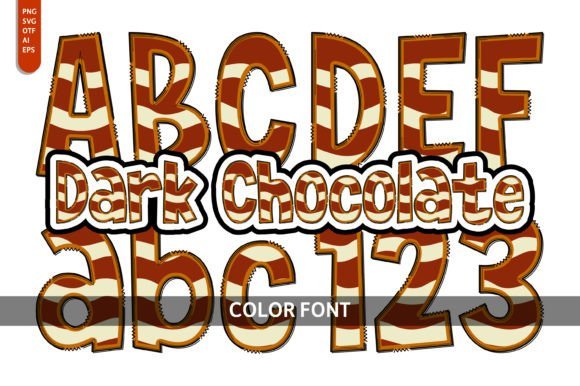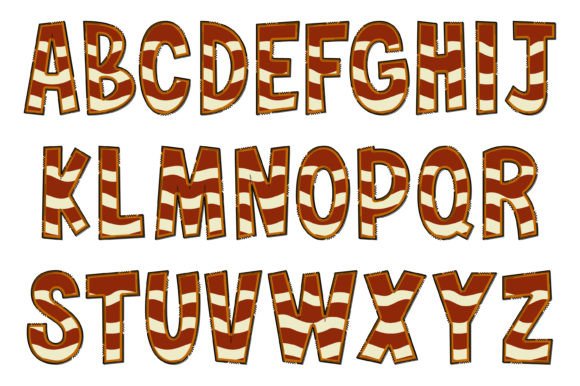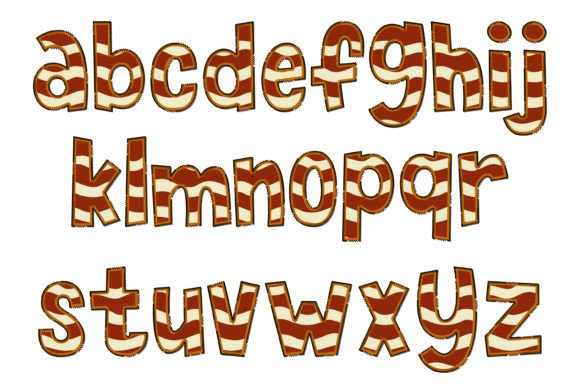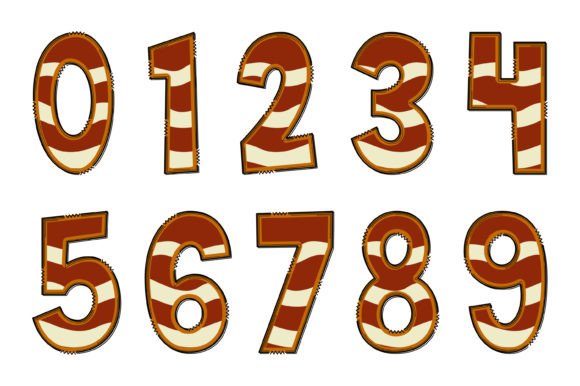
Unwrapping the Perfect Font: A Journey to the Dark Chocolate Font
As designers, we’ve all been there – staring at a blank page, trying to conjure up the perfect font to bring our creative vision to life. It’s that moment of epiphany when the right font clicks, and our design starts to take shape. For me, it was a children’s book project that required a font that was both playful and easy to read. That’s when I stumbled upon the Dark Chocolate Font – a delightful, whimsical font that added a touch of magic to my design.
The Dark Chocolate Font is a versatile tool for designers looking to add a playful or artistic feel to their work. Whether it’s a children’s book, poster, invitation, or greeting card, this font is sure to bring a smile to the viewer’s face. Its unique blend of elegance and whimsy makes it a valuable asset for designers seeking to create engaging and memorable designs.
Dark Chocolate Font Key Features
- Unique Characteristics: Hand-drawn design with a rich, dark chocolate color scheme and subtle texture
Designer Review: Dark Chocolate Font
Overall, I found Dark Chocolate Font to be a unique and intriguing addition to any design project. It’s perfect for creating a sense of luxury and sophistication, making it ideal for high-end branding, fashion, or gourmet food packaging.
What works well: ✨ The font’s unique blend of modern and vintage elements creates a sense of depth and character. The subtle texture and nuances in the font make it feel premium and high-end. The range of weights and styles available also makes it highly versatile and suitable for various design applications.
- ✨ Excellent for luxury branding, fashion, and gourmet food packaging
- ✨ Unique blend of modern and vintage elements
- ✨ High-end feel and premium texture
However, there are some limitations to consider: ⚠️ The font may not be suitable for projects requiring a clean and minimalist aesthetic, as its ornate details can be distracting. Additionally, the font may not be as readable in smaller font sizes or when used for body text, as its intricate details can make it difficult to decipher.
Overall, I would recommend Dark Chocolate Font for designers looking to add a touch of luxury and sophistication to their projects. While it may have some limitations, its unique charm and high-end feel make it a valuable addition to any design library.
Tip: Use the Dark Chocolate Font to create a luxurious and sophisticated look for your designs, especially for branding and packaging materials.
Tip: Use the Dark Chocolate Font to add a touch of elegance to your designs, especially for typography-heavy projects.
Tip: Use the Dark Chocolate Font to create a professional and polished look for your presentations and documents.
The Dark Chocolate Font is ideal for:
- Branding and packaging materials
- Typography-heavy projects
- Presentations and documents
Remember to use the Dark Chocolate Font sparingly to avoid overwhelming the design.